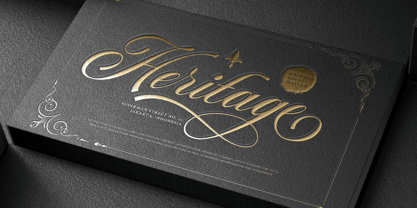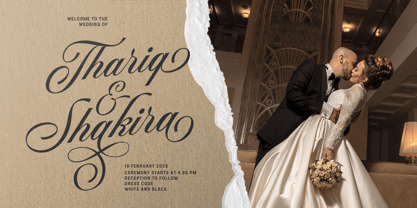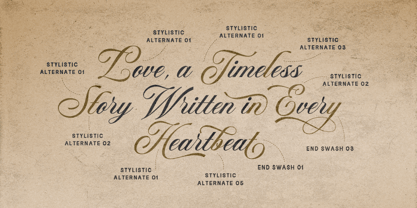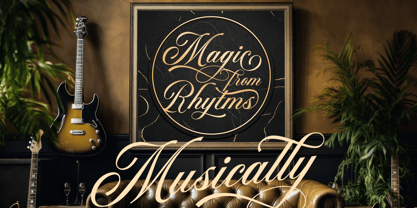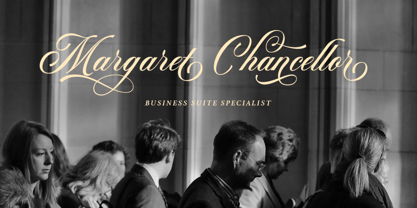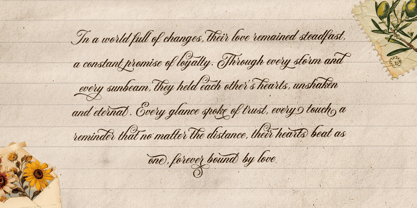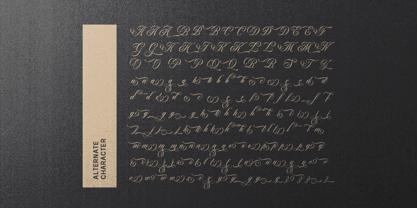
Regality Script
by Bale Type
The Regality Script Font Family was designed by Sarid Ezra and published by Bale Type. Regality Script contains 1 styles.
Introducing Regality — a luxury script font designed to bring romance and sophistication to your designs. Packed with stylish alternates, Regality lets you create a modern, refined look with ease. Ideal for wedding invitations, branding, quotes, and more. This versatile font also supports multiple languages, making it perfect for global appeal.
Regality Script